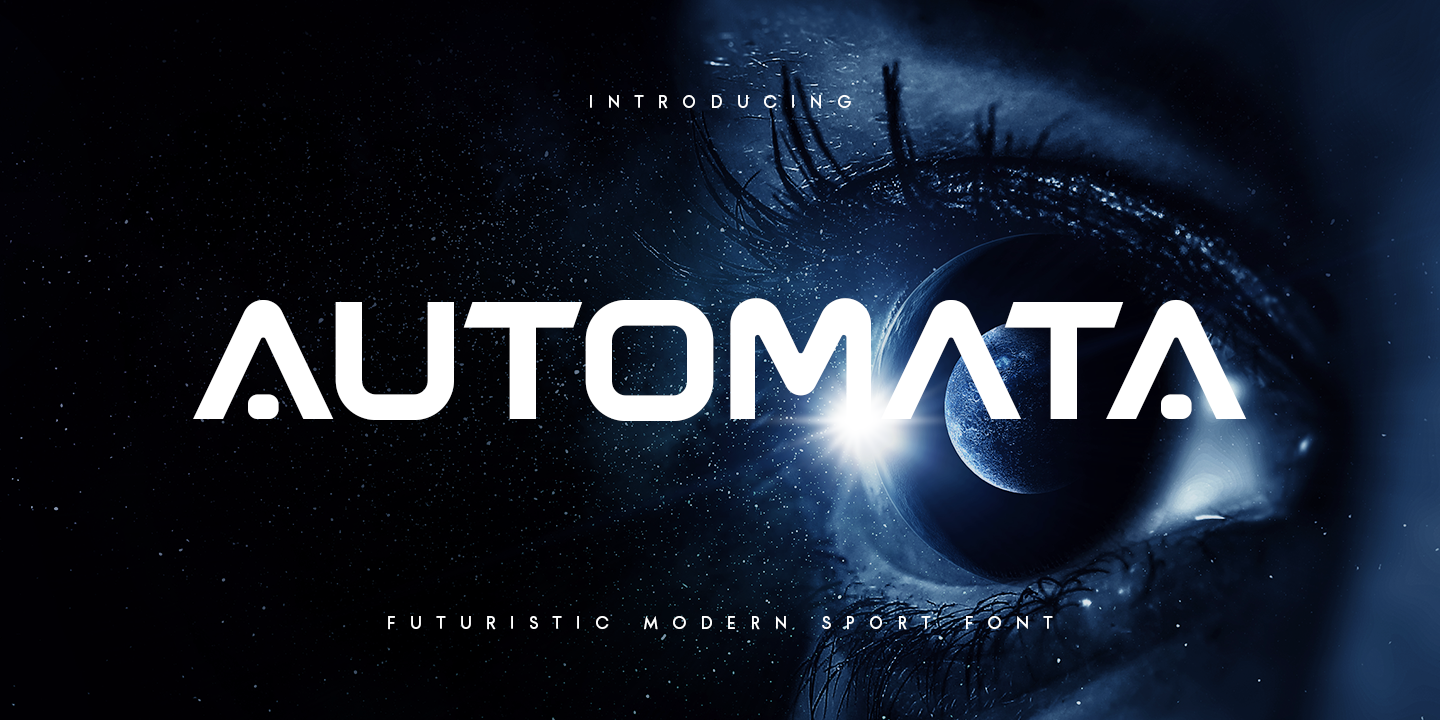
Automata Style Font excels in diverse design applications including robotics company branding, artificial intelligence presentations, futuristic gaming interfaces, automation technology marketing, mechanical engineering materials, industrial design portfolios, sci-fi movie titles, and cutting-edge tech communications that require robotic precision and technological sophistication.
What makes Automata Style Font truly exciting is its masterful embodiment of mechanical precision and robotic elegance that captures the fascinating intersection between human creativity and machine intelligence, reflecting the sophisticated automation systems that increasingly shape our technological landscape. This innovative typeface features geometric letterforms with subtle mechanical details that evoke images of precision-engineered components, automated manufacturing systems, and the elegant efficiency of robotic movements. The font's automated character reflects the reliability and precision of mechanical systems, making it perfect for brands that want to communicate technological advancement, engineering excellence, and the seamless integration of human design with automated processes. Its robotic appearance creates immediate associations with innovation, precision, and technological progress.
The Automata Style Font family includes multiple weights and mechanical variations designed to enhance technological communication. The collection features Light, Regular, Medium, Bold, and Black weights, each maintaining the font's characteristic automated appeal while offering different levels of mechanical presence. The family also includes alternate characters with varying precision details, technical elements that simulate mechanical components, and stylistic sets that create systematic text arrangements reflecting the order and efficiency of automated systems. Additional features include contextual alternates and mechanical ligatures that enhance the authentic, robotic appearance.
Technology and engineering professionals consistently choose Automata Style Font Free Download for projects requiring authentic robotic character and technological credibility. The font's automated nature makes it particularly effective for robotics companies, AI development firms, and engineering consultancies targeting audiences who appreciate mechanical precision and technological innovation. Its excellent readability across various applications ensures effective communication while maintaining the distinctive robotic character that conveys technological authority and engineering excellence.
The advanced OpenType capabilities of Automata Style Font include contextual alternates, stylistic sets, and comprehensive character support that accommodates technical terminology and engineering expressions while preserving the font's authentic automated character. The technical precision ensures consistent mechanical appearance across different technology applications and engineering platforms.
For creative professionals seeking a typeface that embodies genuine robotic heritage and automated sophistication, Automata Style Font offers unparalleled technological appeal and mechanical elegance. Its ability to convey engineering precision while maintaining functional communication makes it invaluable for technology companies, engineering firms, and automation specialists. The font's distinctive robotic character ensures memorable technological impact across all applications, creating powerful visual identity systems that celebrate the precision of automated systems and the remarkable achievements of mechanical engineering that continue to revolutionize human productivity and technological capability.